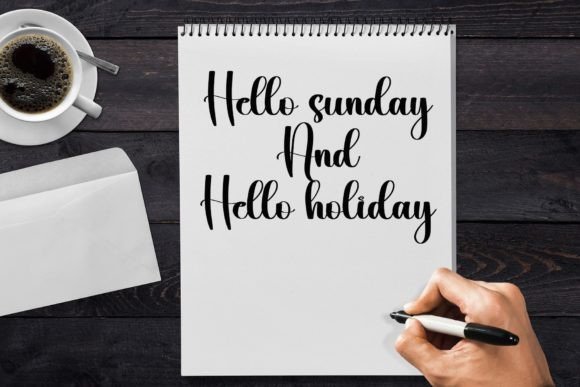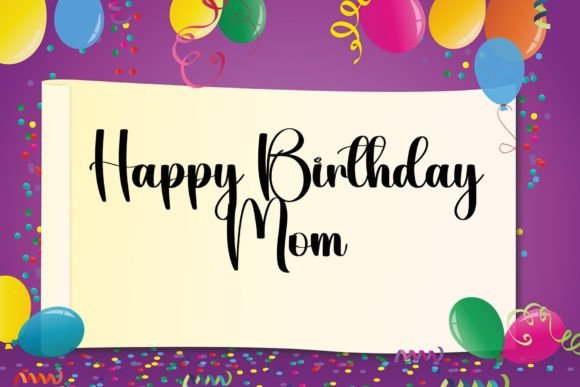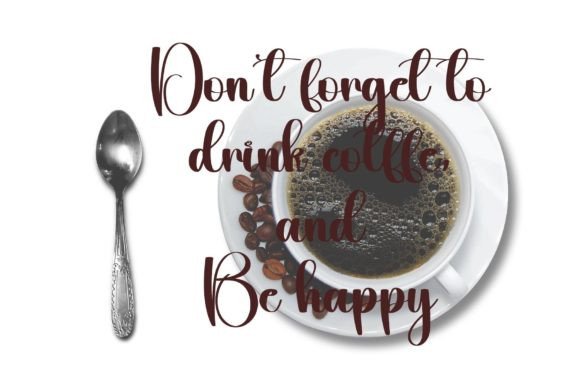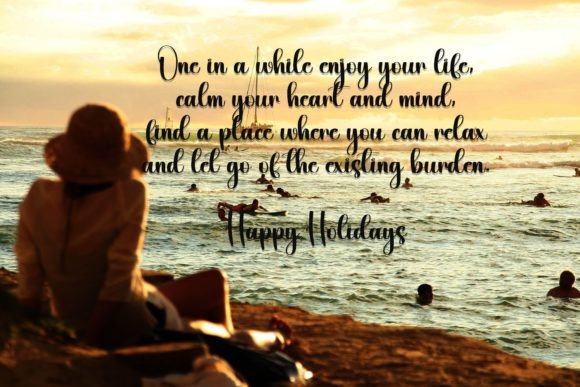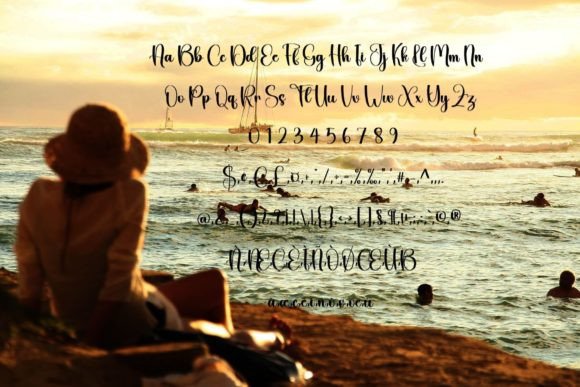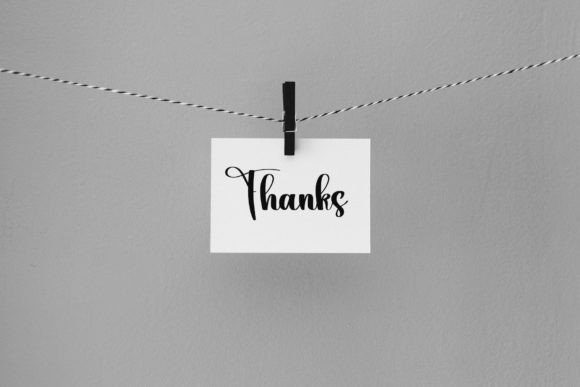
Beauty Font
About Beauty Font
“Beauty” is a sweet handwritten font that brings a delightful touch to your design projects. With characters that dance along the baseline, this font adds a playful and charming effect, infusing a sense of joy and movement into your text. “Beauty” is crafted to add a luxury spark to any design project you wish to create.
The sweetness of “Beauty” is evident in its handwritten charm. The font exudes a friendly and approachable vibe, making it suitable for a variety of design applications. Whether used in invitations, branding, or other creative projects, the font introduces a touch of whimsy and character.
The dancing characters along the baseline contribute to the font’s playful and dynamic nature. This unique feature sets “Beauty” apart, making it an excellent choice for projects that aim to convey a sense of joy and lightheartedness. The font’s ability to add movement to the text enhances the overall visual appeal.
The promise of a luxury spark in “Beauty” is seen in its ability to elevate the aesthetic of your design projects. The handwritten style, combined with the playful baseline dance, creates a distinctive and memorable look. Whether applied to logos, product packaging, or promotional materials, the font adds a touch of luxury.
In essence, “Beauty” is more than just a font; it’s a design tool that brings sweetness, playfulness, and a touch of luxury to your creative projects. Embrace its whimsical charm and let it infuse joy into your invitations, branding, and other design endeavors. Allow “Beauty” to be the element that adds a unique spark to your creations, making them stand out with a delightful and charming appeal.